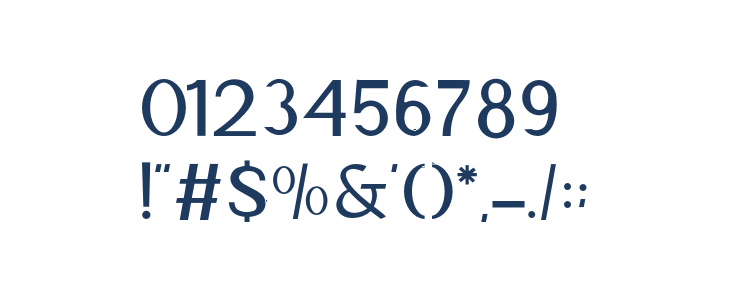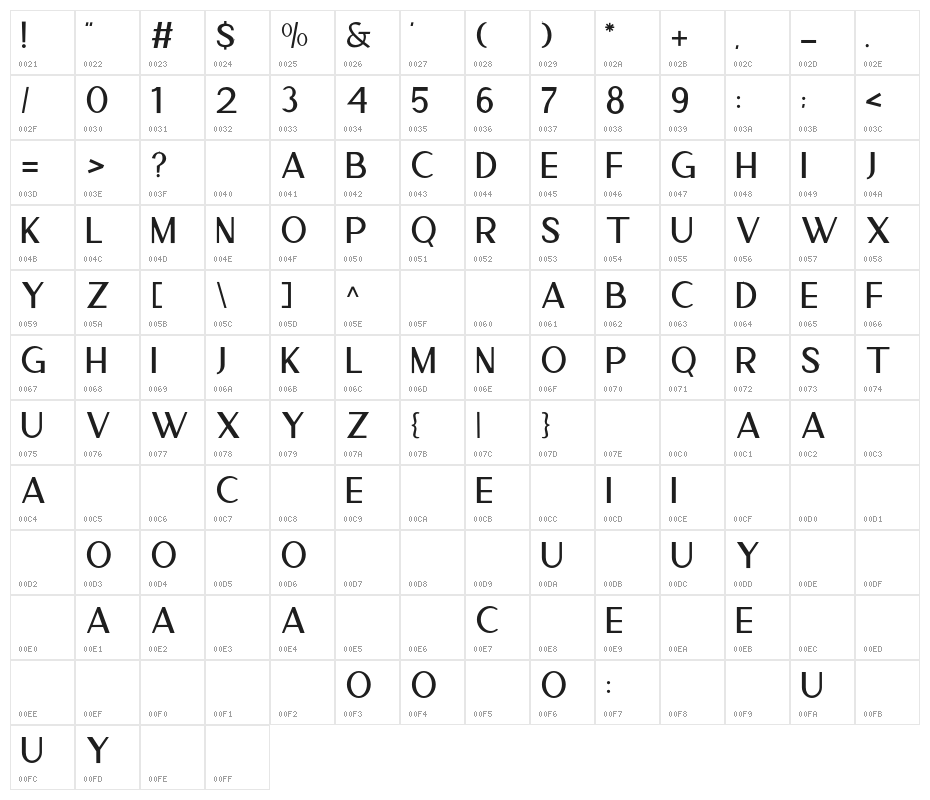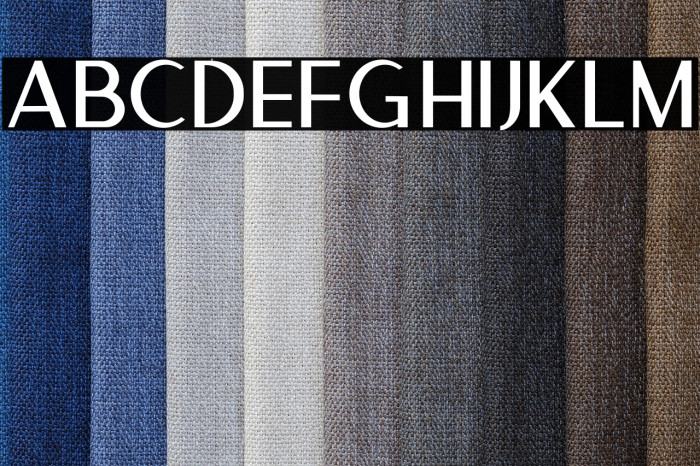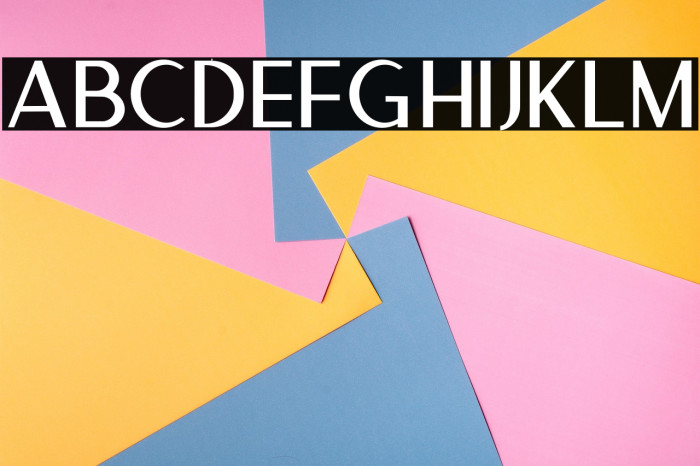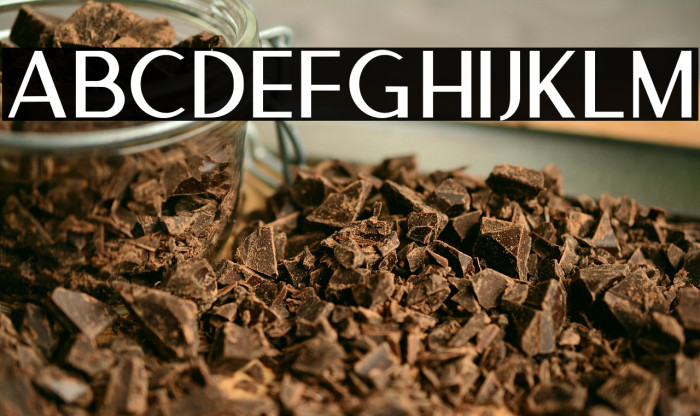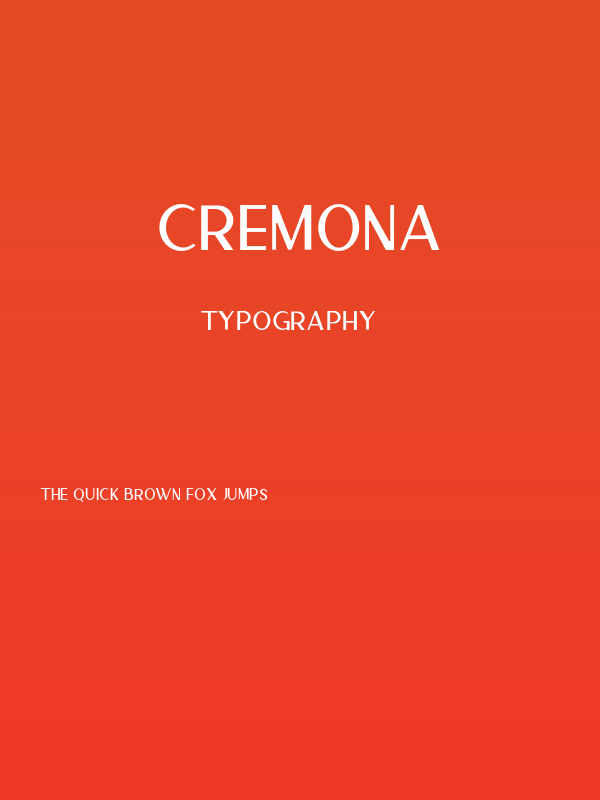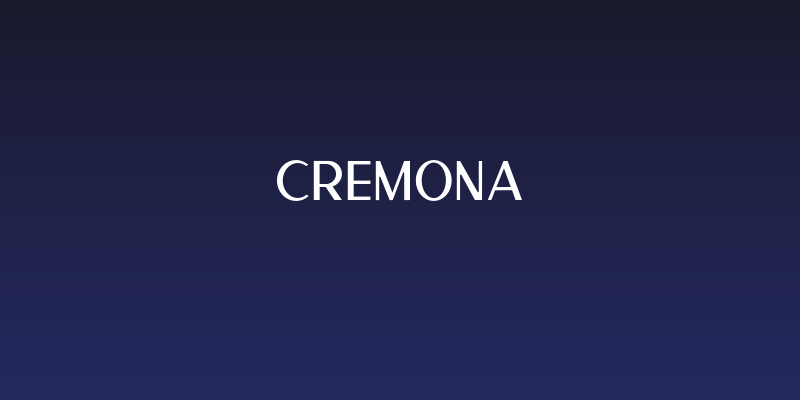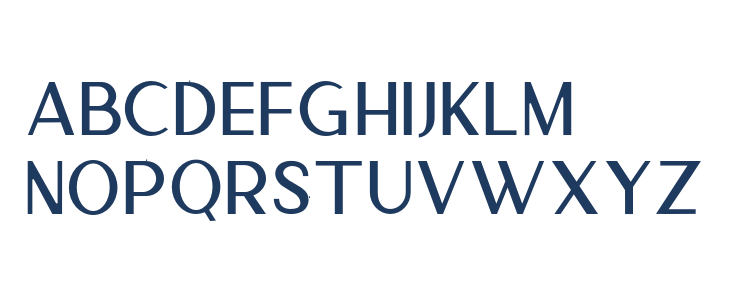
Cremona Font
Cremona Description
This font features a clean and modern sans-serif style with a focus on clarity and readability. The characters are well-proportioned, with a consistent stroke width that gives it a uniform appearance. The uppercase letters are bold and assertive, while the lowercase letters maintain a balanced and approachable look. The numerals are clear and distinct, making them suitable for both digital and print applications. The special characters are designed to complement the overall aesthetic, ensuring versatility in various design contexts.
Proposed ProjectsIdeal for branding, web design, corporate materials, and editorial content.